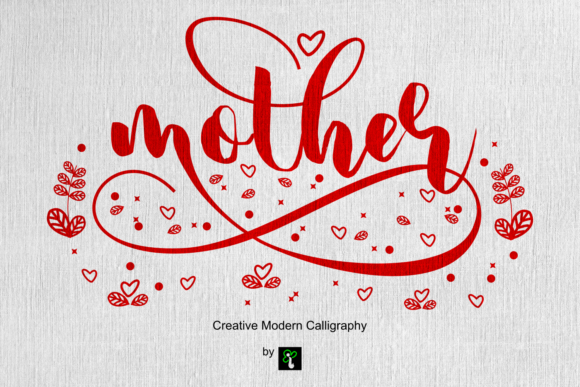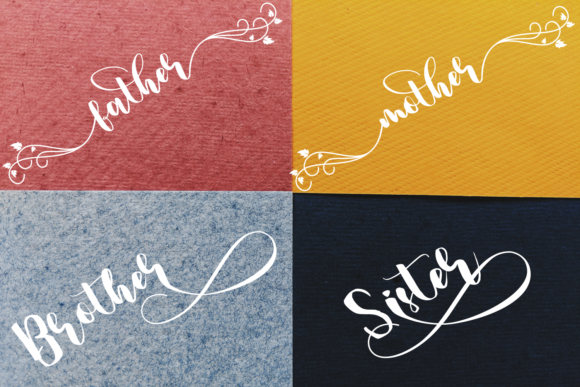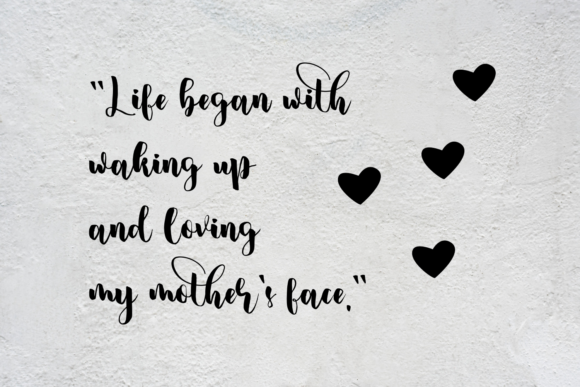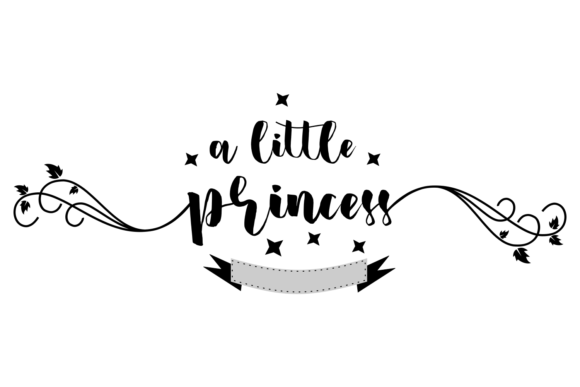
Mother Font
About Mother Font
Mother is a lovely and delicate script font that exudes elegance and class. This font was particularly crafted for those who need a beautiful and refreshing look to their designs. Mother is PUA encoded which means you can access all of the glyphs and swashes with ease!